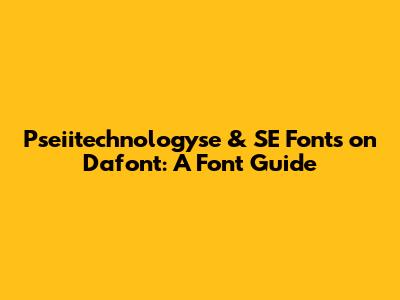
- Define Your Project's Purpose: What message are you trying to convey? A playful project calls for a different font than a serious one. Understand the tone and style you're aiming for.
- Know Your Audience: Who are you trying to reach? A younger audience might respond well to trendy, unconventional fonts, while a more conservative audience might prefer classic, timeless typefaces.
- Consider Readability: No matter how stylish a font is, it's useless if people can't read it. Ensure that your chosen font is legible in both headlines and body text, especially for digital applications.
- Think About Hierarchy: Use different fonts for headlines and body text to create a visual hierarchy. A bold, eye-catching font for headlines can draw attention, while a clean, readable font for body text can ensure a comfortable reading experience.
- Test, Test, Test: Always test your font choices in different sizes and contexts. What looks great on your computer screen might not translate well to a mobile device or a printed page. Print out samples and view them from different distances to ensure readability.
- Pair Fonts Wisely: If you're using multiple fonts, make sure they complement each other. Avoid using fonts that are too similar, as this can create a sense of visual clutter. Instead, choose fonts that offer a clear contrast while still maintaining a cohesive look.
- Consistent Usage: Once you've chosen your fonts, stick to them throughout your project. Consistent use of typography helps create a cohesive and professional look. Avoid using too many different fonts, as this can make your design feel cluttered and disorganized.
- Accessibility Considerations: When choosing fonts, keep accessibility in mind. Ensure that your font choices are readable for people with visual impairments. Use sufficient contrast between the text and background, and avoid using overly decorative or stylized fonts that may be difficult to decipher.
- Read Reviews and Comments: Before downloading a font, take a look at the reviews and comments left by other users. This can give you valuable insights into the font's quality, usability, and any potential issues.
- Be Mindful of Font Combinations: Pairing fonts effectively is an art. Use online resources and font pairing tools to help you find fonts that complement each other. Avoid using fonts that are too similar or clash with each other.
- Stay Updated: Dafont is constantly updated with new fonts. Regularly browse the website to discover new typefaces and keep your font collection fresh and inspiring.
Hey guys! Ever found yourself scrolling endlessly through font websites, searching for that perfect typeface to make your project pop? Well, today we're diving into the world of Pseiitechnologyse and SE Fonts available on Dafont, two terms you might have stumbled upon in your quest for typographic excellence. Whether you're a seasoned designer or just starting out, understanding these fonts and how to use them can seriously level up your creative game. So, let's get started and explore what makes these fonts tick!
Understanding Pseiitechnologyse Fonts
When we talk about Pseiitechnologyse fonts, we're essentially referring to a specific aesthetic or style often associated with technology, modernism, and sometimes even a futuristic vibe. The name itself might sound a bit abstract, but the fonts under this umbrella usually share common characteristics. Think clean lines, geometric shapes, and a certain sleekness that makes them ideal for projects related to tech startups, digital interfaces, or anything that needs a contemporary feel. These fonts often aim to convey a sense of innovation and efficiency, making them a go-to choice for brands looking to project a modern image.
Why are these fonts so popular, you ask? Well, in today's world, technology is everywhere. From the apps we use daily to the websites we browse, tech-related visuals are constantly bombarding us. Using a font that resonates with this technological aesthetic can help your project feel relevant and up-to-date. Moreover, the clarity and readability of many Pseiitechnologyse fonts make them incredibly versatile. They work well in both headlines and body text, ensuring that your message is not only visually appealing but also easily digestible.